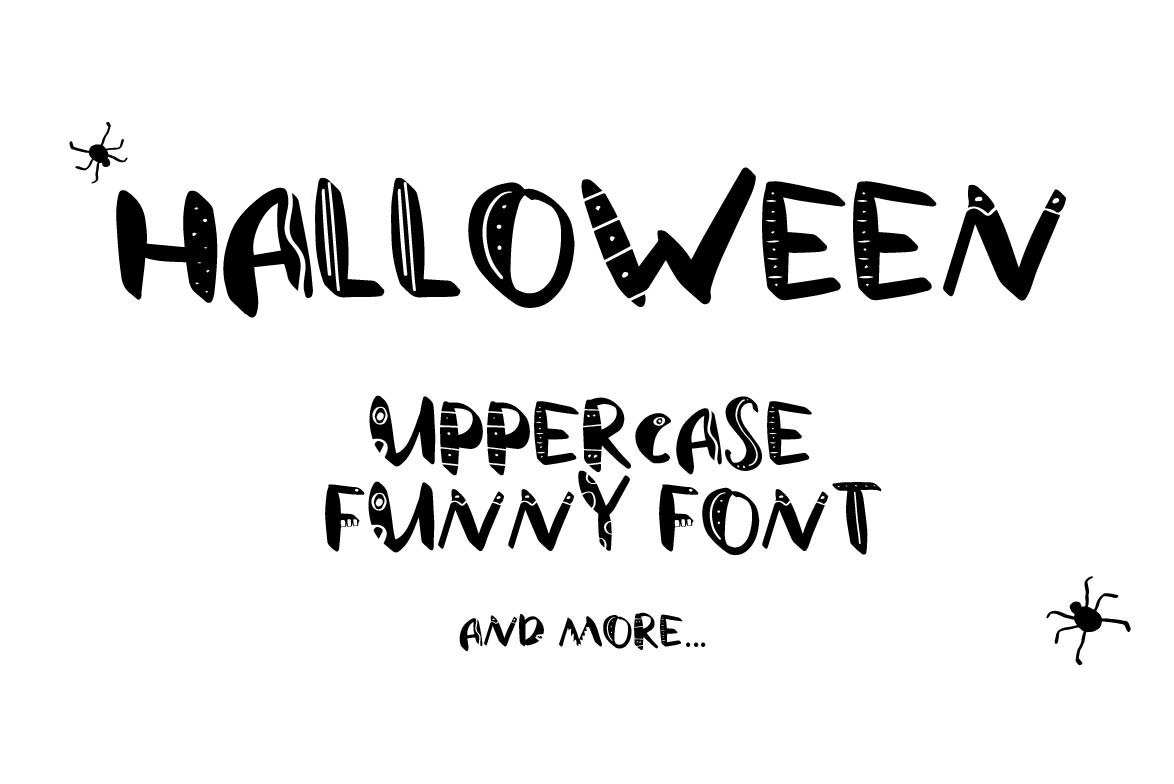
Funny uppercase font. And doodles.
New funny title font in honor of Halloween.
Sign your invitation or do yourself and friends t-shirts with funny inscriptions and pictures.